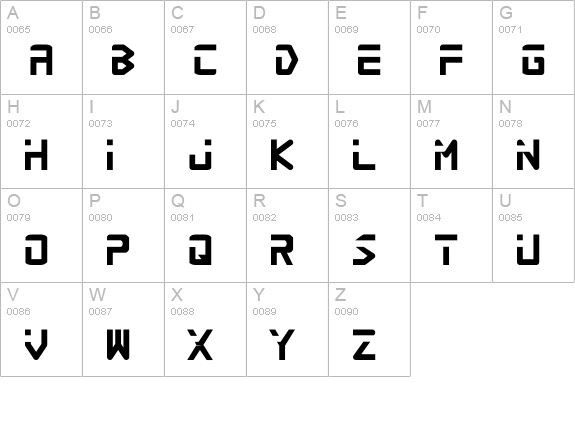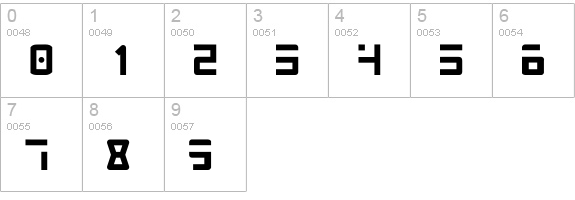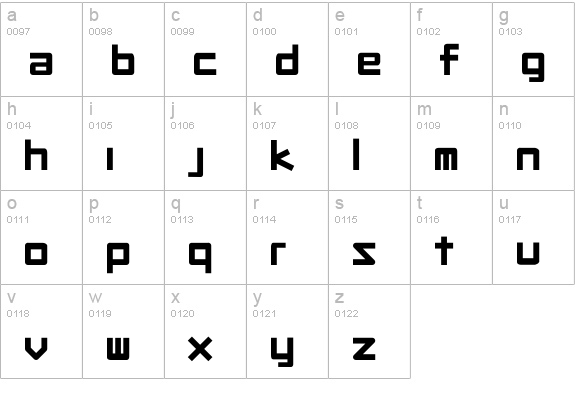
Procyon Font Details
Procyon font embodies a perfect blend of elegance and modernity, making it a versatile typeface suitable for a wide range of design projects. With its sleek lines and balanced proportions, Procyon exudes sophistication and professionalism while maintaining a touch of warmth and approachability. This font is ideal for branding, editorial design, advertising, and more. The best part? Procyon is available for free download at FontsMarket.com, allowing designers and creatives to access this high-quality typeface without any cost. Whether you're working on a personal project or a commercial endeavor, Procyon offers a polished and refined look that will elevate your designs to the next level. Embrace the beauty of Procyon font and enhance your creative work with its timeless appeal.